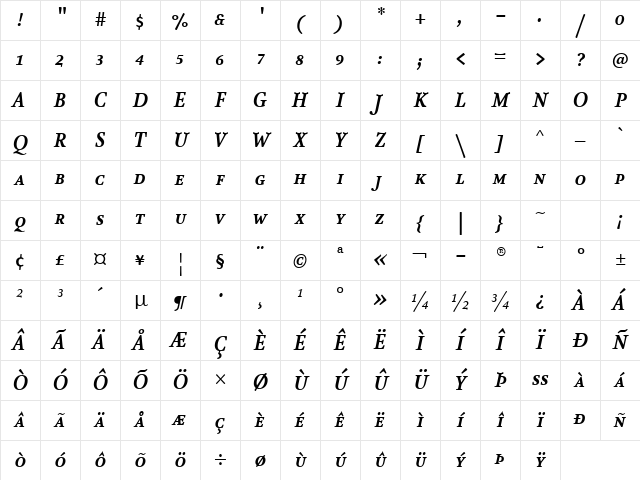
AtmaSerifTF-BoldItalicSC Regular
Design Context for AtmaSerifTF-BoldItalicSC
AtmaSerifTF-BoldItalicSC carries the refined structure of traditional serif typography, with bracketed terminals and considered proportions that communicate credibility and craft. The slanted form adds forward momentum and visual energy. Its bold stroke weight gives it real presence on the page.